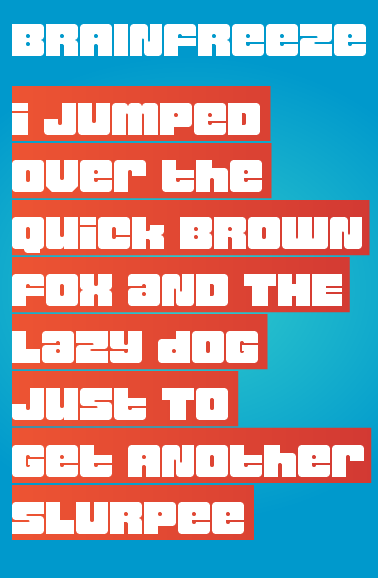
• The Slurpee Font - Created and fueled by an unhealthy summer obsession with the world's greatest beverage you can drink/eat with a straw. A little interweb research gave some hints at a few more glyphs than the initial six glyphs in the 'Slurpee' logo. In some cases, like with the 'c' glyph, I noticed that it had been drawn differently in different usage. See here and here.
Being that the current Slurpee logo is Unicase, I decided to try and make uppercase and lowercase alternatives that can be mixed and matched for the unicase feel.
See also Chank Diesel's wonderful font Cosmic, which draws from the old school Slurpee branding.
looks like ice cubes
this looks like a normal version of the Undertale logo font and i love it